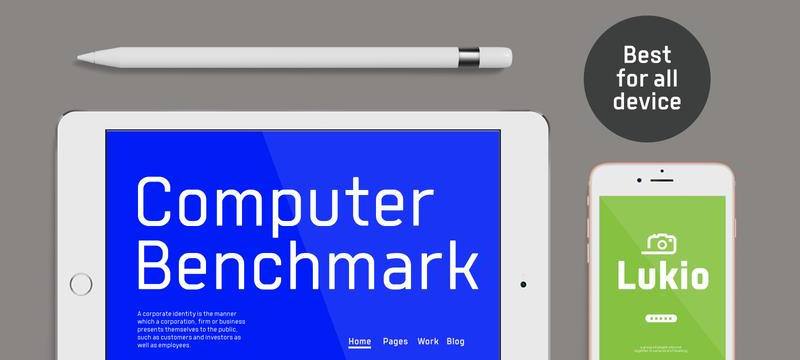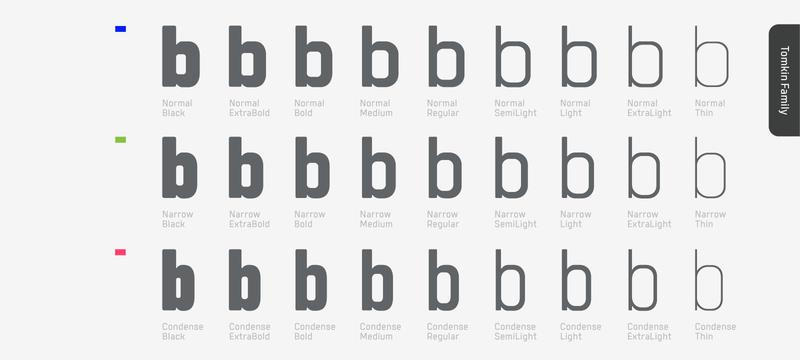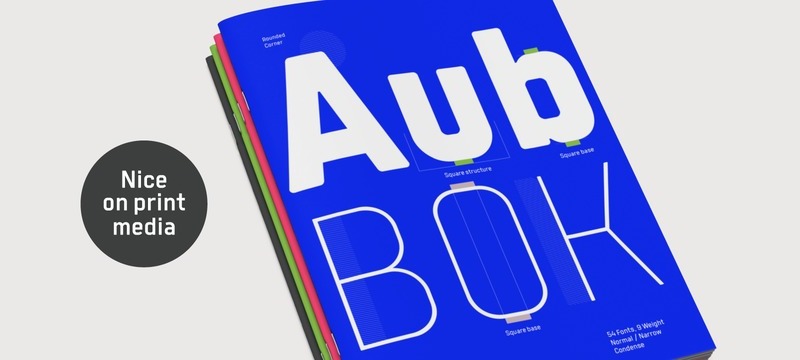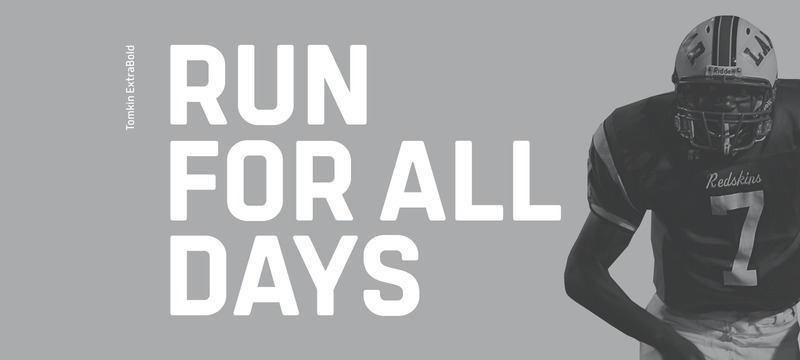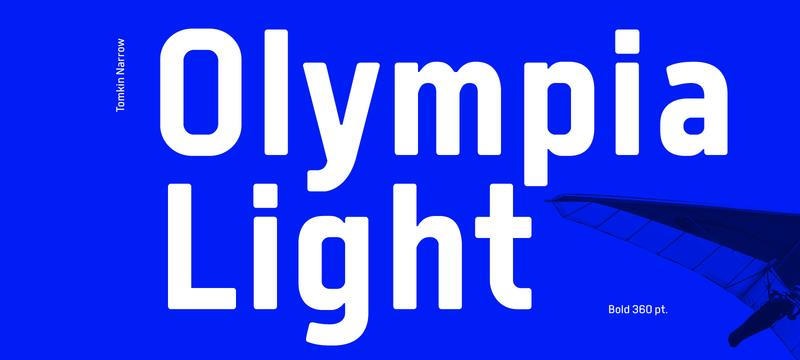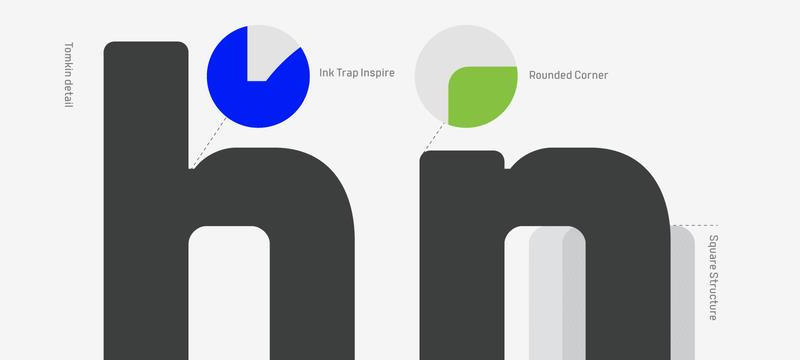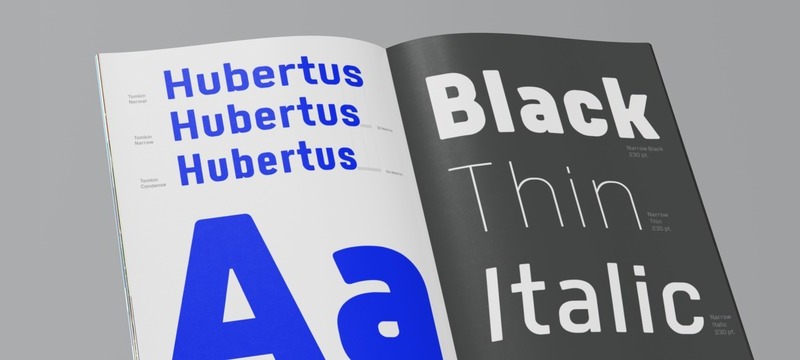
Tomkin Font Family: 54 Sans-serif Fonts, Matching Italics, 9 Weights & 3 Variations
Get the entire Tomkin font family today, a big typeface that features 54 sans-serif fonts with a variety of weights and width variants as well as matching true italics for each font, a very versatile typeface that will have you covered for many diffrent use-cases: Tomkin looks great on large sizes for display compositions and headlines as well as on smaller sizes for long paragraphs
Every font in this family is delivered in OTF file format, with support for wester, central and eastern european languages, and features 9 different weights ranging from thin to extra bold & black weights, and 3 distinctive font width variations including normal, narrow & condensed.
Each font & weight also includes matching italics, so you'll be able to use this work horse font in all kinds of typographical projects, ranigng from large billboards and signs to magazine headlines and paragraphs, branding, packaging and much more.